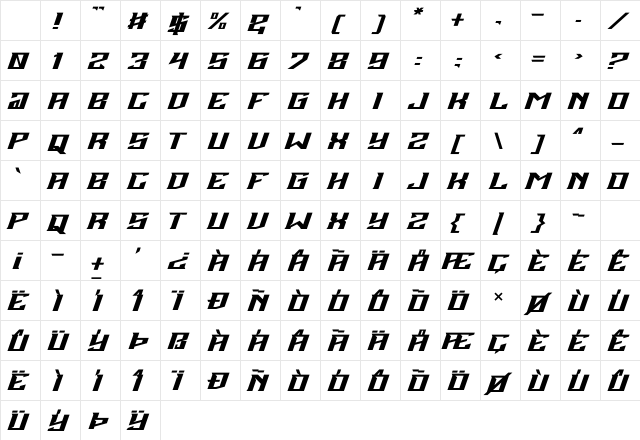
Complete Noise Gear Regular glyph index. Displaying only characters natively supported by Noise Gear Regular font.
Noise Gear is a composed and adaptable typeface that performs quietly and consistently across a wide range of design contexts.